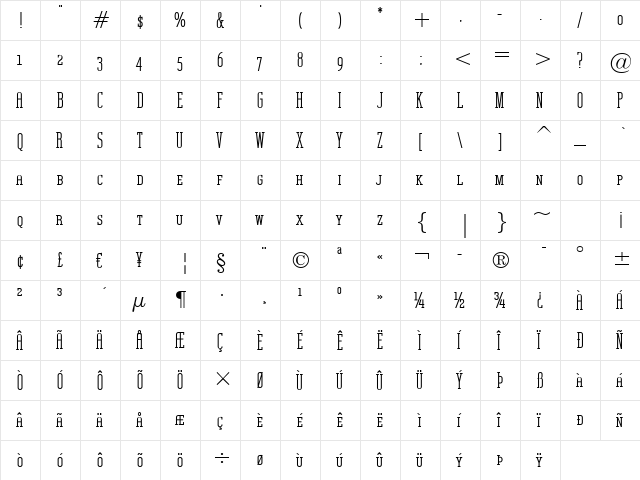
Unknown Caller BTN SC Bold
Design Context for Unknown Caller BTN SC Typeface
Unknown Caller BTN SC is a composed and adaptable typeface that performs quietly and consistently across a wide range of design contexts. The heavy weight commands attention and anchors typographic hierarchies.